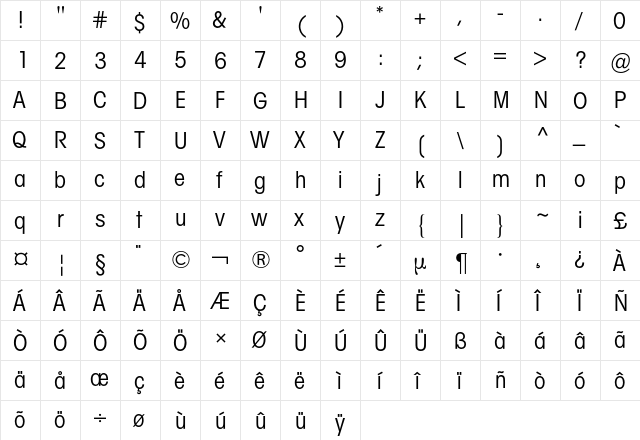
Avant Garde Condensed BQ Regular
Design Context for Avant Garde Condensed BQ Typeface
Avant Garde Condensed BQ is a composed and adaptable typeface that performs quietly and consistently across a wide range of design contexts. Its narrow stance lets it pack a punch even in space-constrained designs.